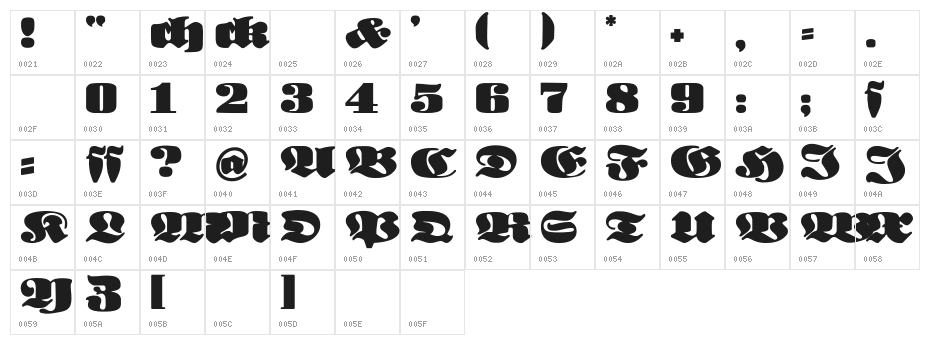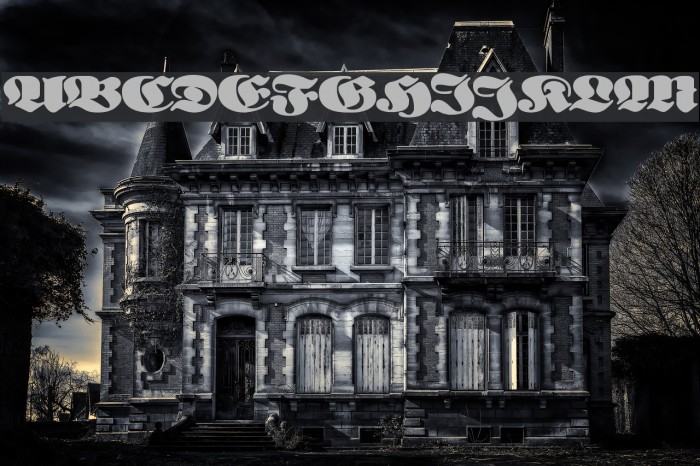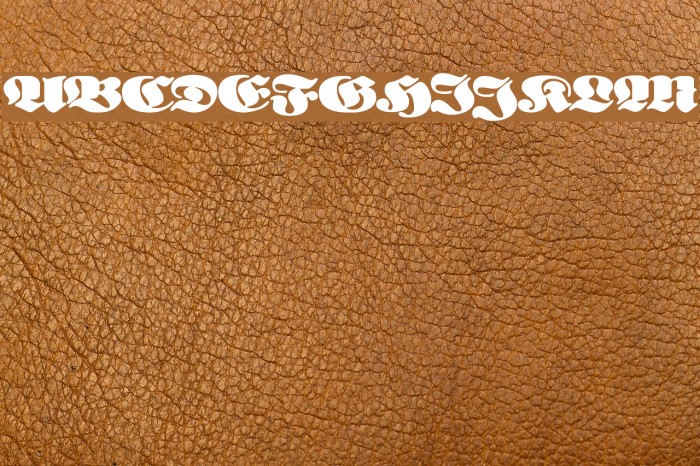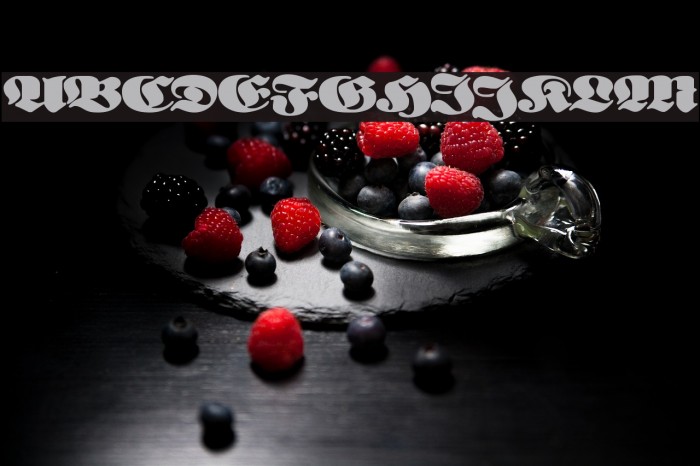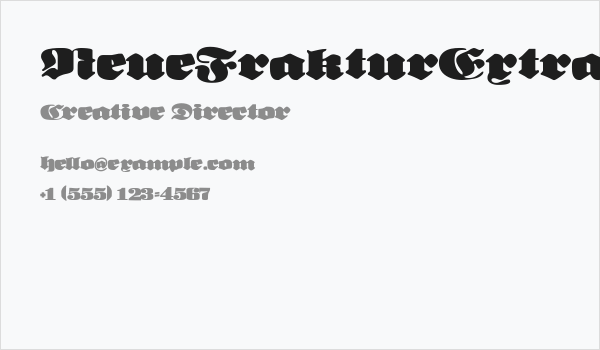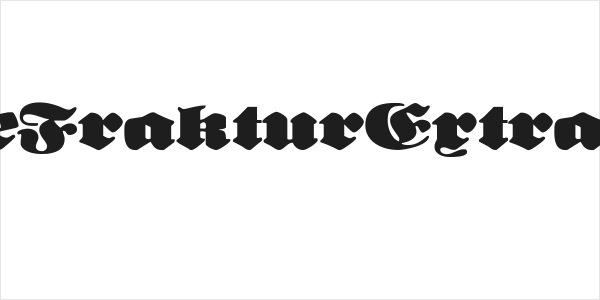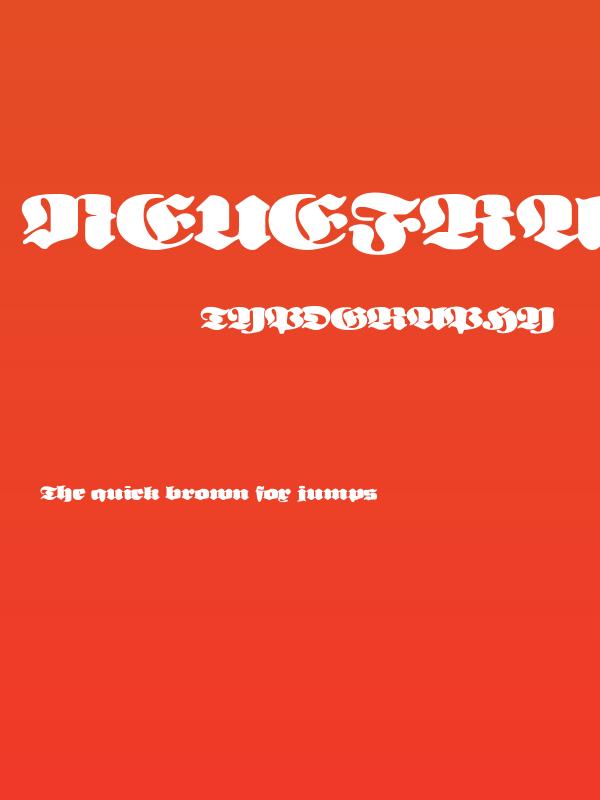
NeueFrakturExtraBold Font
NeueFrakturExtraBold Description
This font exudes a bold and dramatic presence, characterized by its intricate and ornate design. The letterforms are heavily stylized, featuring sharp angles and elaborate curves that evoke a sense of historical elegance. Each character is meticulously crafted, showcasing a high level of detail that is reminiscent of traditional blackletter styles. The font's weight is substantial, giving it a commanding appearance that is perfect for making a strong visual impact. Its unique style is both decorative and authoritative, making it suitable for projects that require a touch of sophistication and grandeur.